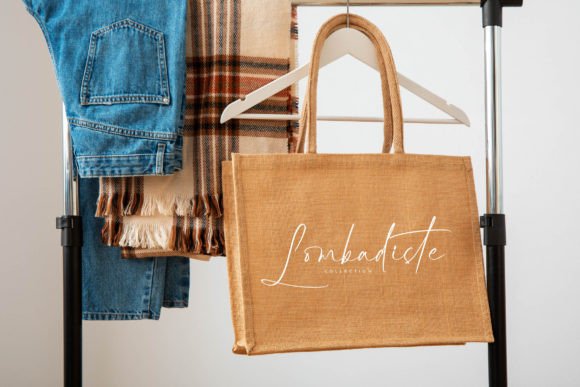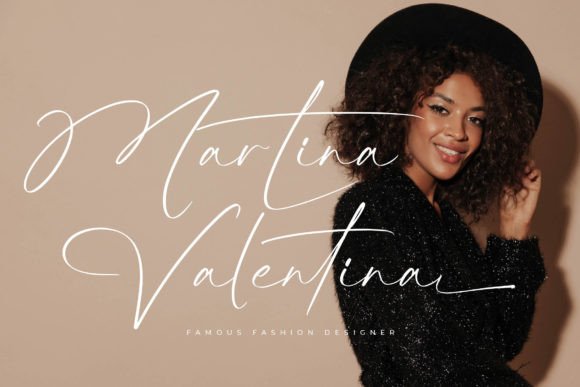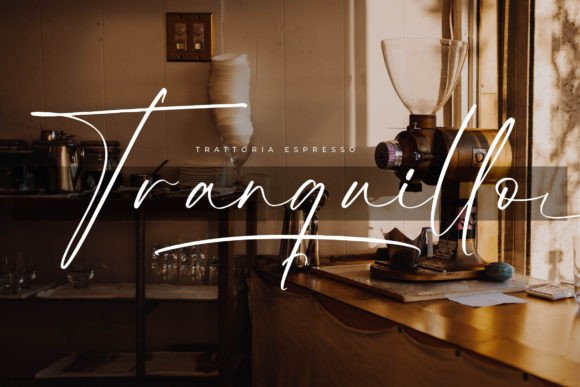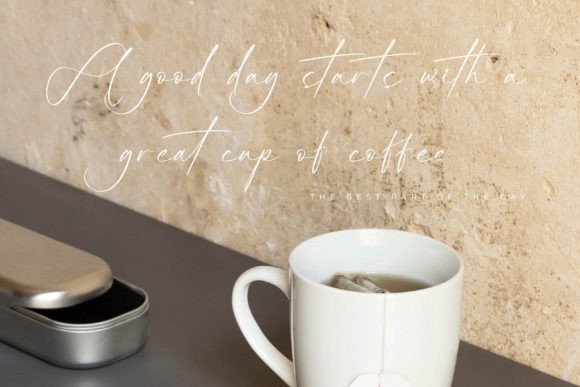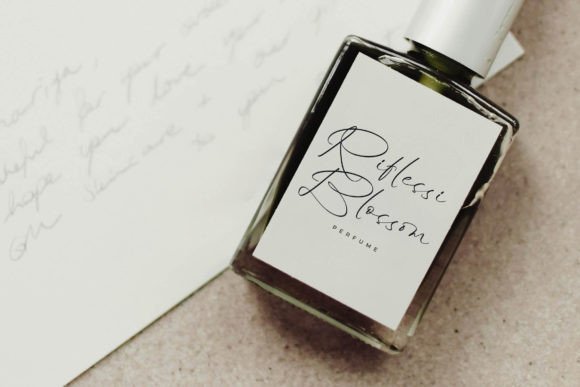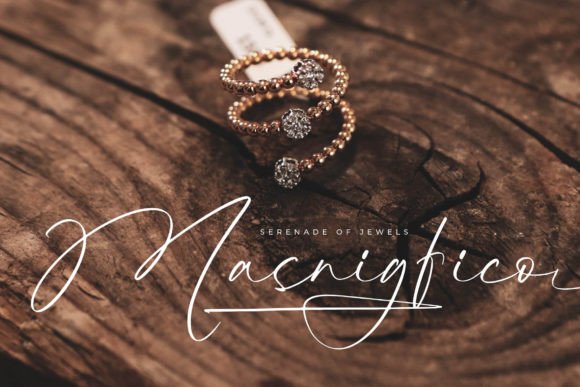
The Elegance of Handwritten Luxury: Introducing Bannethons Font
As a designer, have you ever stumbled upon a perfectly crafted handwritten script that instantly elevates your project to new heights? For me, it was the discovery of Bannethons – Modern Signature Script, a Luxury Script font that has become my go-to choice for adding a touch of sophistication to my designs.
Bannethons Font is more than just a font – it’s a statement piece that exudes luxury and elegance. Suitable for a wide range of projects, from logos and branding to homeware designs and product packaging, this font is a valuable asset for any designer looking to add a touch of class to their work. Whether you’re creating a bespoke invitation card or a luxurious product label, Bannethons Font is sure to impress.
Bannethons Font Key Features
- Font Family: Bannethons Font comes in 3 font families: Bannethons Regular, Bannethons Bold, and Bannethons Italic.
- Character Set: Supports a wide range of characters, including Latin, Cyrillic, and Greek alphabets, making it suitable for multilingual designs.
- Unique Characteristics: Features a unique blend of modern and vintage elements, with intricate details and ornate flourishes.
Bannethons Font Review
I recently had the chance to work with the Bannethons font, and I’m sharing my honest thoughts on it.
- Unique aesthetic: Bannethons has a distinctive, modern style that sets it apart from more common fonts.
- Legibility: Despite its unique design, the font remains highly legible, making it suitable for a wide range of applications.
- Flexibility: Bannethons is available in a variety of weights and styles, allowing designers to experiment with different looks.
- Limited language support: I noticed that Bannethons doesn’t support certain languages, which could be a drawback for designers working with non-English text.
- Overuse risk: The font’s distinctive style may lead to overuse, making it appear clichéd or predictable in certain contexts.
Overall, I think Bannethons is a solid choice for designers looking for a modern, unique font. While it has some limitations, its flexibility and legibility make it a worthwhile consideration. With careful use, Bannethons can add a touch of sophistication to your designs.
Bannethons font is ideal for:
1. Headlines and titles.
2. Branding and logos.
3. Advertising and marketing materials.
4. Digital signage and displays.
Tips for Getting the Most Out of Bannethons Font
1. Use bold and italic styles to add emphasis and create visual interest.
2. Experiment with different font sizes and combinations to create a unique look.
3. Pair Bannethons font with other fonts to create a harmonious and balanced design.
Alternatives to “Bannethons Font”
Playfair Display is an elegant, luxurious font ideal for high-end branding, invitations, and luxury products. It features intricate details and ornate flourishes, making it perfect for creating a sophisticated and refined look. Compared to Bannethons Font, Playfair Display is more formal and less playful, making it suitable for corporate or formal events.
Abril Fatface is a modern, elegant font featuring a classic feel with a touch of sophistication. It’s ideal for use in branding, advertising, and editorial design. Compared to Bannethons Font, Abril Fatface is more refined and less ornate, making it suitable for a wide range of applications, from corporate to fashion branding.
Carolyna Pro is a modern, luxurious font featuring a mix of elegance and playfulness. It’s ideal for use in branding, advertising, and editorial design. Compared to Bannethons Font, Carolyna Pro is more versatile and less ornate, making it suitable for a wide range of applications, from fashion to luxury branding.